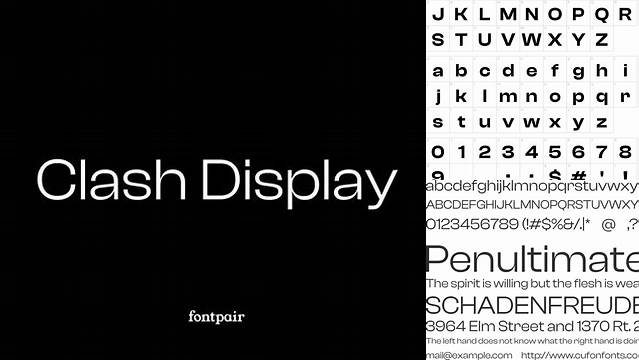
Hey guys! Are you looking for a cool, eye-catching font for your next project? Look no further, because today we're diving into the world of Clash Display Semibold, a fantastic font that's available for free download! This font is a real game-changer, especially if you want to add a touch of modern elegance and a bit of a punch to your designs. Whether you're a seasoned graphic designer, a budding entrepreneur, or just someone who loves to tinker with visuals, getting your hands on this font is a smart move. This article will break down everything you need to know about Clash Display Semibold, from where to download it safely to how to use it effectively in your work. Get ready to level up your design game with this awesome font! We'll cover its features, where to find it, licensing, and tips on how to best utilize this free gem. This font is versatile and can be used across various projects, ensuring that your text always looks its best. Let's jump in!
The Perks of Using Clash Display Semibold Font
So, what makes Clash Display Semibold so special, you ask? Well, for starters, it's got a fantastic balance of modern and readable features. The semibold weight is perfect for headlines, titles, and anywhere you want to make a bold statement without being overwhelming. It’s got a sleek and contemporary look, making it an excellent choice for projects where you want to convey a sense of style and sophistication. Many designers love it because it's highly versatile. You can use it for everything from website headings and logos to posters and social media graphics. The font’s clean lines and strong presence make it stand out, ensuring your text is clear and easily noticeable. Using this font can significantly enhance the visual appeal of your work, leaving a lasting impression on viewers. The semibold weight allows you to create a visual hierarchy. It means you can emphasize certain words or phrases. It allows you to make sure your key messages are noticed first. It's not just about looks; it's about creating designs that communicate effectively and look good. It allows you to achieve a professional look without breaking the bank, giving your projects a polished, professional appearance. So, with its striking appearance and usability, this font is definitely a winner.
Tips for Using Clash Display Semibold Font Effectively
Okay, you’ve got the Clash Display Semibold font free download, now what? Here are some tips to make the most of this awesome font. First off, consider the context. This font is perfect for headlines, titles, and short snippets of text where you want to grab attention. Experiment with different font sizes and weights to see what works best for your design. Due to the font's boldness, it's generally not the best choice for body text; it can be a bit hard to read in large paragraphs. Pairing this font with a more readable font for body copy can be a powerful combination. Pay attention to the spacing. Adjust the letter spacing (kerning) and line spacing (leading) to improve readability and visual appeal. Sometimes, a little tweaking can make a huge difference. Don't be afraid to experiment! Try different color combinations to see how the font looks on various backgrounds. White text on a dark background can create a striking visual contrast. Black on white is always a classic and effective choice. Use the font consistently throughout your design. This will help create a cohesive and professional look. Consider using different weights and styles to create a visual hierarchy. Finally, make sure the font complements the overall style and tone of your project. Whether you are going for modern, classic, or minimalistic, this font can often fit right in with the proper application.
Clash Display Semibold in Graphic Design Projects: Best Practices
Let's get down to the nitty-gritty: how to use Clash Display Semibold in your graphic design projects. The key is to integrate it thoughtfully to enhance your design, not to overwhelm it. If you're designing a logo, this font can provide a strong, memorable look. Keep the design simple and ensure the font is the focal point. For website headings, consider using this font to create visual appeal and make your site stand out. It's a great way to capture attention. When designing posters or flyers, this font is perfect for headlines and key information. Using it for important text is a great way to highlight your message. Remember to keep the text legible. Avoid using the font in small sizes, or it might become difficult to read. Ensure there is a contrast between the font color and the background color for good readability. Balance is crucial. Combine this font with a more subtle font for the body of your text. Use different weights of the font to create a visual hierarchy. This helps your audience quickly understand the most critical information. In terms of layout, consider the spacing between the letters. Make sure the spacing is not too tight or too loose, as this can affect readability. By incorporating these tips, you can use this font effectively and create professional-looking designs.
Matching Clash Display Semibold with Other Fonts for Harmonious Designs
One of the design secrets to unlocking the true potential of Clash Display Semibold is knowing how to pair it with other fonts. The art of font pairing involves selecting fonts that complement each other, creating a harmonious and visually appealing design. Since this font has a bold and modern look, it pairs well with clean, minimalist fonts that are less assertive. Consider using a sans-serif font for body text, as it provides contrast while maintaining readability. Some excellent choices for pairings are fonts like Open Sans, Lato, or Montserrat. Another great option is to pair it with a serif font that is slightly more subtle to add sophistication and elegance. Times New Roman or Georgia are good choices to provide a classic feel. When selecting a matching font, think about the overall tone of your project. If you want a modern design, stick to sans-serif fonts. For a more classic or elegant look, opt for serif fonts. Consider the weight of the fonts. Match the bold font with a lighter weight, allowing it to stand out as the main element. Make sure to check the font's height, to be sure that all the fonts are cohesive. The key is balance. The secondary font should support the headline's message without competing. This is your chance to use complementary designs to create a consistent visual experience.
Conclusion: Unleashing the Potential of Clash Display Semibold